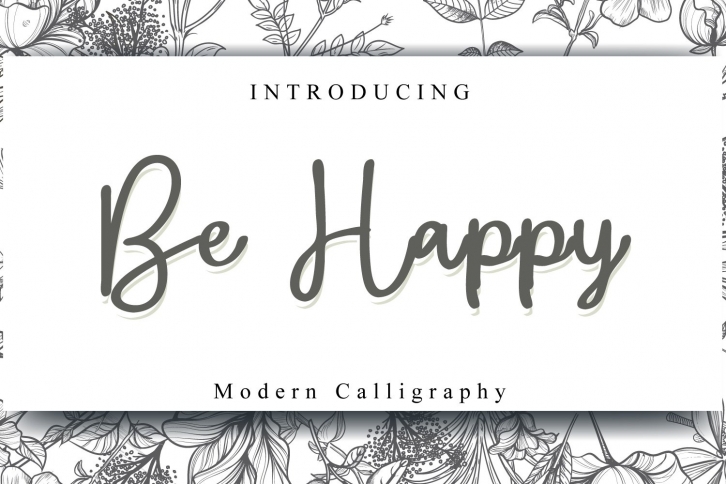
Be Happy is a trendy and unique font with an authentic style. It was designed by Fiqiart and it's a great choice for creative people who need such a font. It was released on July 23, 2020 and the file size is 13.33 MB. Be Happy will add an organic vibe to any design idea!